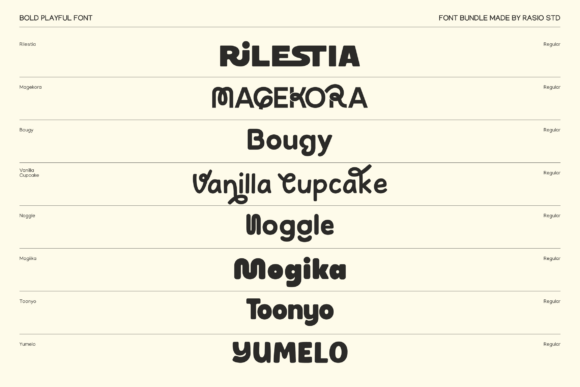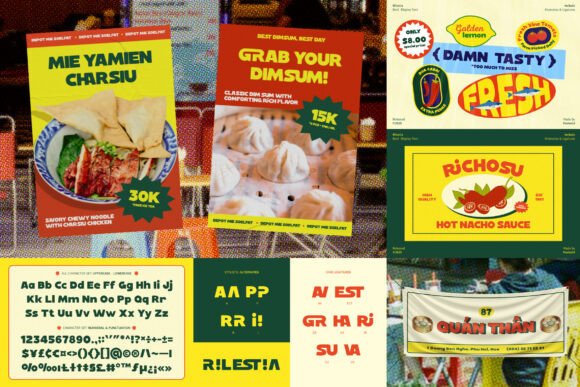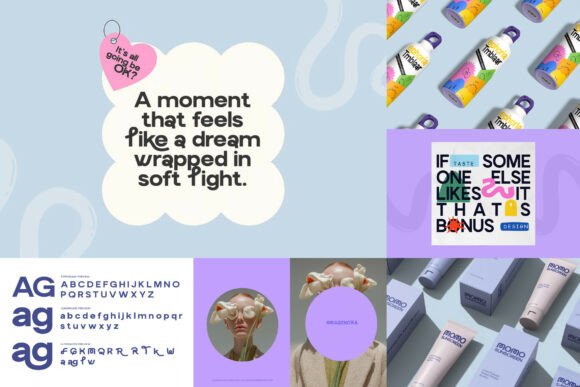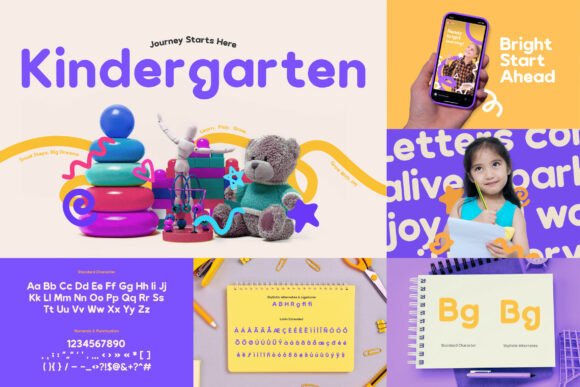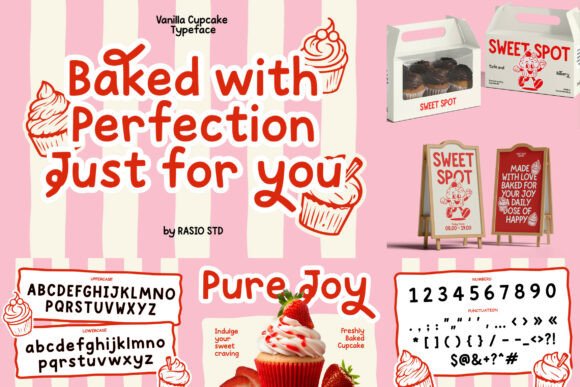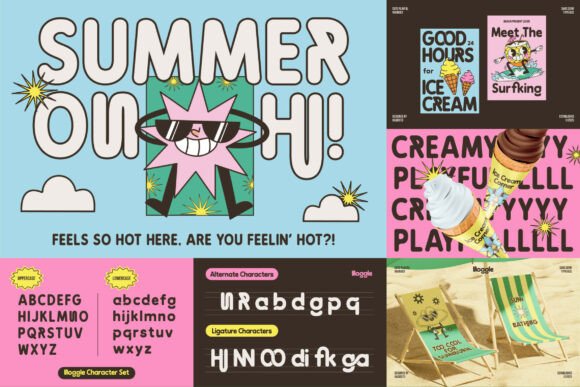
Introducing the Bold Playful Bundle Font: Add a Smile to Your Designs
Are you tired of using the same old fonts in your designs? Do you want to add a touch of fun and personality to your projects? Look no further than the Bold Playful Bundle Font! This joyful collection of bold, rounded, and playful typefaces is designed to bring smiles to your designs and help you create something truly special.
What is the Bold Playful Bundle Font?
The Bold Playful Bundle Font is a carefully curated collection of fonts that are perfect for projects that need to feel fun, expressive, and full of personality. This bundle is packed with energetic shapes and friendly letterforms that are sure to make your designs stand out. From cute display fonts to bubbly and experimental styles, every font in this bundle is crafted to be both eye-catching and readable.
Perfect for Kids-Related Projects and Playful Branding
The Bold Playful Bundle Font is ideal for kids-related projects, such as children’s books, educational materials, and kids’ clothing. The fonts in this bundle are designed to be fun and engaging, making them perfect for capturing the attention of young audiences. Additionally, the bundle is also great for playful branding, such as logos, packaging, and advertising materials for products that are designed for kids or have a playful tone.
Versatile and Easy to Use
One of the best things about the Bold Playful Bundle Font is its versatility. The bundle includes a range of fonts that can be used for a variety of projects, from posters and packaging to stickers and social media content. Whether you’re designing for fun brands, creative products, or cheerful campaigns, this bundle gives you the tools you need to create something amazing.
Key Features of the Bold Playful Bundle Font
• Bold and Playful: The fonts in this bundle are designed to be bold and playful, making them perfect for projects that need to make a statement.
• Rounded and Friendly: The rounded shapes and friendly letterforms in this bundle make it perfect for kids-related projects and playful branding.
• Energetic and Expressive: The fonts in this bundle are full of energy and expression, making them perfect for projects that need to feel fun and lively.
• Readability: Every font in this bundle is crafted to be readable, even at smaller sizes.
How to Use the Bold Playful Bundle Font
The Bold Playful Bundle Font is a must-have for designers and crafters who want to add a touch of fun and personality to their projects. With this bundle, you’ll get:
• Endless creative possibilities: With a range of bold and playful fonts at your fingertips, you’ll be able to create something truly unique and special.
• Time-saving: The bundle includes a range of pre-designed fonts, saving you time and effort in your design work.
• Professional-quality fonts: The fonts in this bundle are designed to be professional-quality, making them perfect for commercial projects.
The Bold Playful Bundle Font is a joyful collection of bold, rounded, and playful typefaces that’s perfect for designers and crafters who want to add a touch of fun and personality to their projects. With its energetic shapes, friendly letterforms, and versatile design, this bundle is ideal for kids-related projects, playful branding, posters, packaging, stickers, social media content, and anything that needs a happy visual tone. So why wait? Download the Bold Playful Bundle Font today and start creating something amazing!